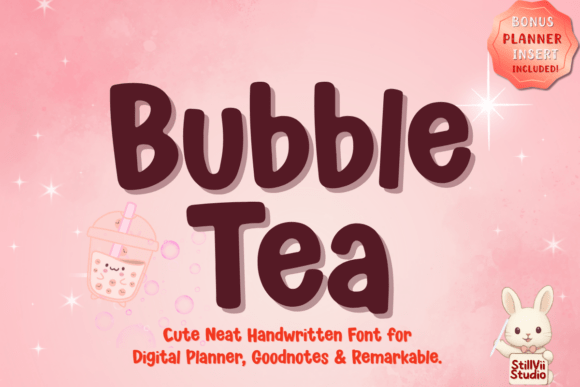
Bubble Tea Font: The Ultimate Cute and Playful Font for Digital Planners and More!
Are you searching for the perfect bold handwritten font for a digital planner that adds a touch of fun? Look no further than Bubble Tea, the ultimate cute bubble font designed to make your Goodnotes and Remarkable planner pop! This font offers a clean, playful alternative for headers and notes, with full uppercase and lowercase letters. In this article, we’ll explore the features and benefits of the Bubble Tea font, and how it can elevate your digital planning and design projects.
What is Bubble Tea Font?
Bubble Tea is a unique and playful font designed specifically for digital planners, journals, and note-taking. Its clean and friendly design makes it perfect for adding a touch of fun to your Goodnotes and Remarkable planner. With full uppercase and lowercase letters, this font is versatile and easy to use.
Perfect for Digital Planners and Journals
Bubble Tea font is perfect for digital planners and journals, offering a cute and playful alternative to traditional fonts. Its bold and clear design makes it easy to read and use, even for those with vision impairments. Whether you’re creating a daily planner, a bullet journal, or a gratitude journal, Bubble Tea font is the perfect choice.
Cute Note-Taking in Goodnotes & Notability
Bubble Tea font is optimized for use in Goodnotes and Notability, making it easy to create cute and organized notes. Its clean design and clear letters make it perfect for note-taking, and its playful vibe adds a touch of fun to your studying and planning.
Procreate Lettering & Digital Stickers
Bubble Tea font is also perfect for Procreate lettering and digital stickers. Its bold and playful design makes it easy to create eye-catching lettering and stickers for your digital projects. Whether you’re creating social media graphics, YouTube thumbnails, or digital planners, Bubble Tea font is the perfect choice.
Aesthetic Study Notes & Summaries
Bubble Tea font is designed to help you create aesthetic study notes and summaries. Its clean and clear design makes it easy to read and use, and its playful vibe adds a touch of fun to your studying. Whether you’re studying for exams or just want to stay organized, Bubble Tea font is the perfect choice.
Fun To-Do Lists & Habit Trackers
Bubble Tea font is perfect for creating fun to-do lists and habit trackers. Its bold and playful design makes it easy to create eye-catching lists and trackers that will help you stay organized and motivated.
Social Media Graphics & Engaging Quotes
Bubble Tea font is also perfect for social media graphics and engaging quotes. Its bold and playful design makes it easy to create eye-catching graphics and quotes that will engage your audience and add a touch of fun to your social media posts.
YouTube Thumbnails & Video Titles
Bubble Tea font is perfect for YouTube thumbnails and video titles. Its bold and playful design makes it easy to create eye-catching thumbnails and titles that will grab the attention of your audience and add a touch of fun to your videos.
Adorable Product Labels & Packaging
Bubble Tea font is also perfect for creating adorable product labels and packaging. Its bold and playful design makes it easy to create eye-catching labels and packaging that will add a touch of fun to your products.
Bubble Tea font is the ultimate cute and playful font for digital planners, journals, and more. Its clean and friendly design makes it perfect for adding a touch of fun to your Goodnotes and Remarkable planner. With its bold and clear design, Bubble Tea font is versatile and easy to use. Whether you’re a designer, crafter, or student, Bubble Tea font is the perfect choice for any project that needs a touch of clear, friendly, and organized fun!